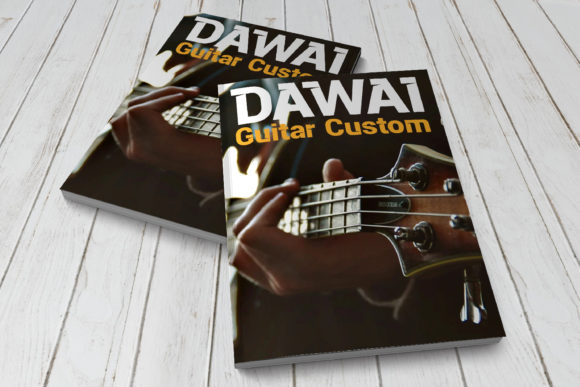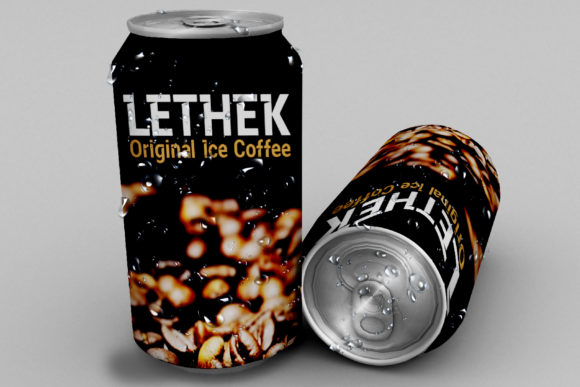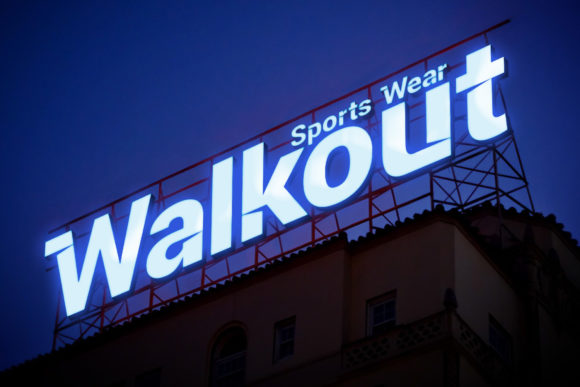
Introduction to Gadys Font
Have you ever stared at a blank canvas, trying to bring your creative project to life, but struggling to find the perfect font to match your vision? I’ve been there too. It’s frustrating when the right typography can make all the difference between a design that falls flat and one that truly shines.
That’s where the incredible Gadys Font comes in – a futuristic and minimalist display font that’s as versatile as it is stylish. With its simple yet unique style, this font is a valuable resource for designers looking to elevate their designs and take their creative projects to the next level.
Whether you’re working on a high-quality design for a client or creating something just for fun, the Gadys Font is an excellent choice. Plus, with its transparent background, you can easily layer it with other design elements to create a truly unique look. And the best part? You can download the Gadys Font for free, making it an accessible design resource for designers of all levels.
Key Features of Gadys Font
- Unique and elegant font style with a transparent background, ideal for various design applications.
- Perfect for use in logos, branding, and typography-based design projects, thanks to its sophisticated and modern design.
Honest Review: Gadys Font
I recently had the chance to work with Gadys Font, and I must say it’s a solid addition to any designer’s toolkit. The font is perfect for those creative projects that require a touch of elegance and sophistication.
- ✨ High quality: Gadys Font is crisp and clear, making it ideal for both print and digital applications.
- ✨ Transparent background: This allows for seamless integration with any design element, giving you more control over the final result.
- ⚠️ Limited customization options: While Gadys Font is versatile, it may not offer the level of customization that some designers require.
- ⚠️ Limited font sizes: The font is best suited for larger text sizes, and may not be the best choice for smaller text.
Overall, I’m impressed with Gadys Font. It’s a reliable design resource that can elevate any creative project. While it may have its limitations, the benefits far outweigh the drawbacks. I’d definitely recommend it to fellow designers looking for a high-quality, free font download.
How to Use Gadys Font
Gadys Font is a high-quality design resource that offers a free download with a transparent background, making it ideal for various creative projects. This font is versatile and can be used in a range of applications.
Tips for Getting the Most Out of Gadys Font
Use Gadys Font for headings and titles to add a touch of elegance to your design.
Experiment with different font sizes and colors to create a visually appealing effect.
Combine Gadys Font with other design elements to create a unique and creative project.
Gadys Font is ideal for:
Creating invitations and event materials.
Designing business cards and marketing materials.
Developing digital products and e-books.
Alternatives to Gadys Font
Compared to Gadys Font, Great Vibes Font has a more refined and sophisticated look, making it suitable for high-end design projects. While Gadys Font is great for casual designs, Great Vibes Font is better suited for more formal or creative projects.
Alex Brush Font is a high-quality, handwritten font that’s perfect for designers looking for a free download that still offers a high level of quality. It’s ideal for use in creative projects where a personal touch is needed, such as blog headers, quotes, or other design elements that require a unique look.
Can I customize Gadys Font, and how do I create a transparent background for my design?
Gadys Font is a vector font, which means you can scale it up or down without losing quality. However, customizing the font may require advanced design skills or software. To create a transparent background, you can use design software like Adobe Illustrator or Photoshop, or online tools like Canva. Simply place the font on a transparent background, and you’re good to go!